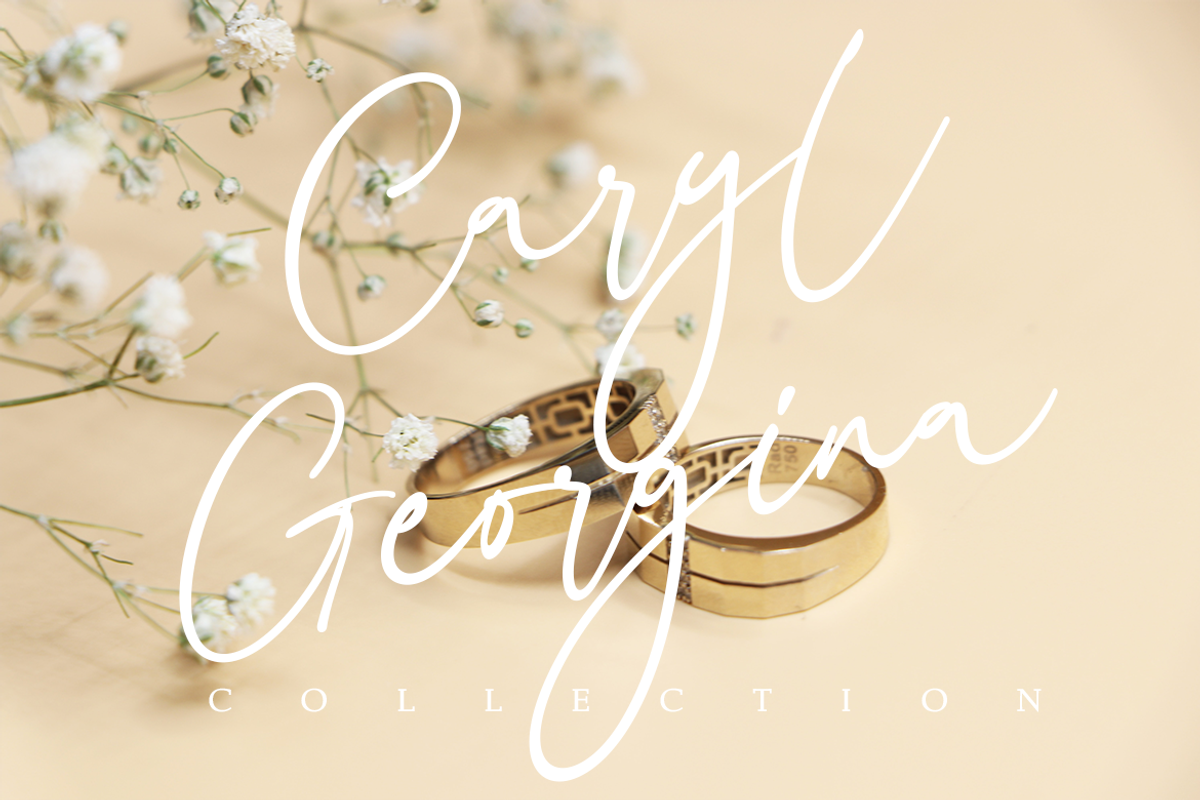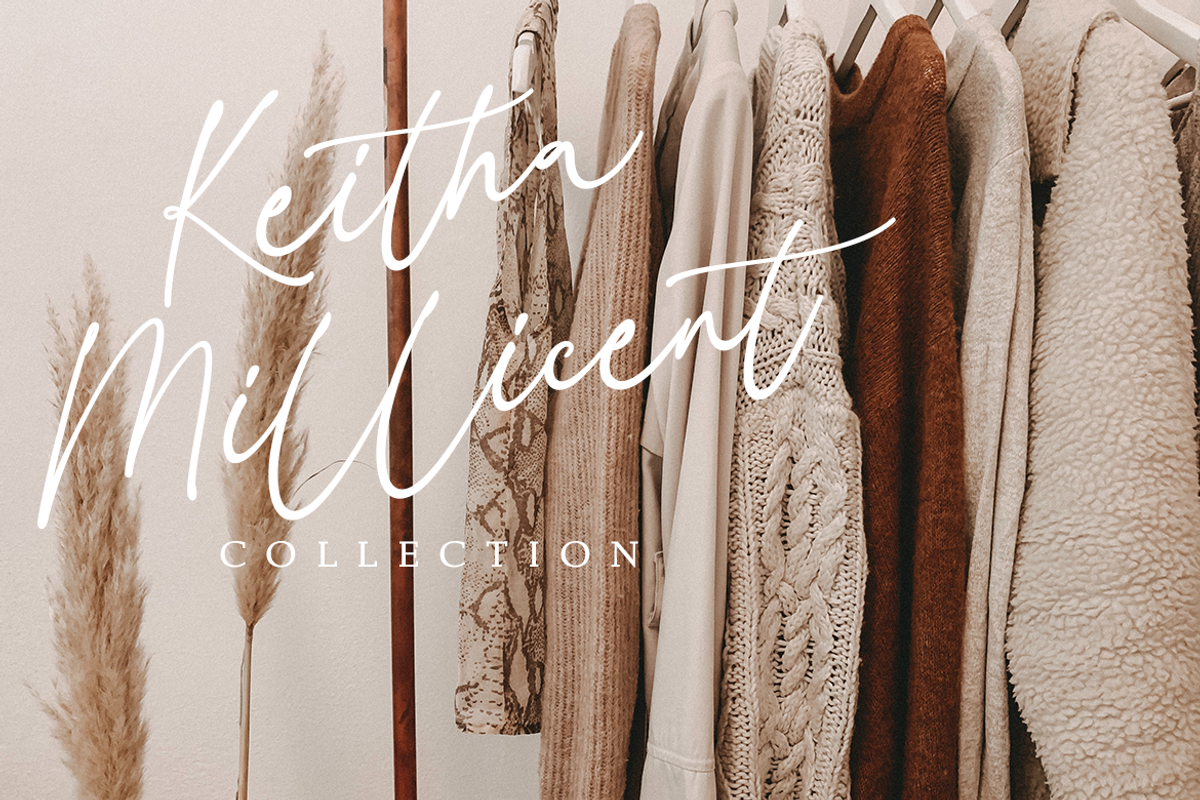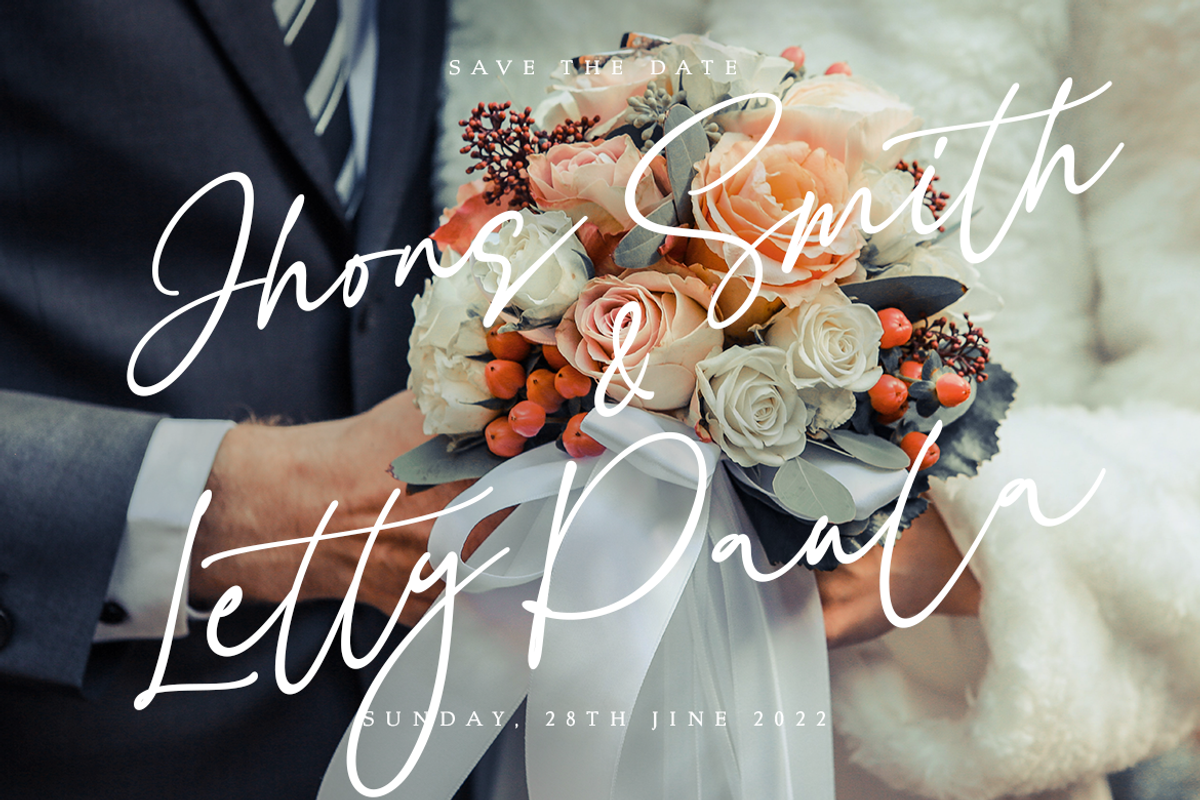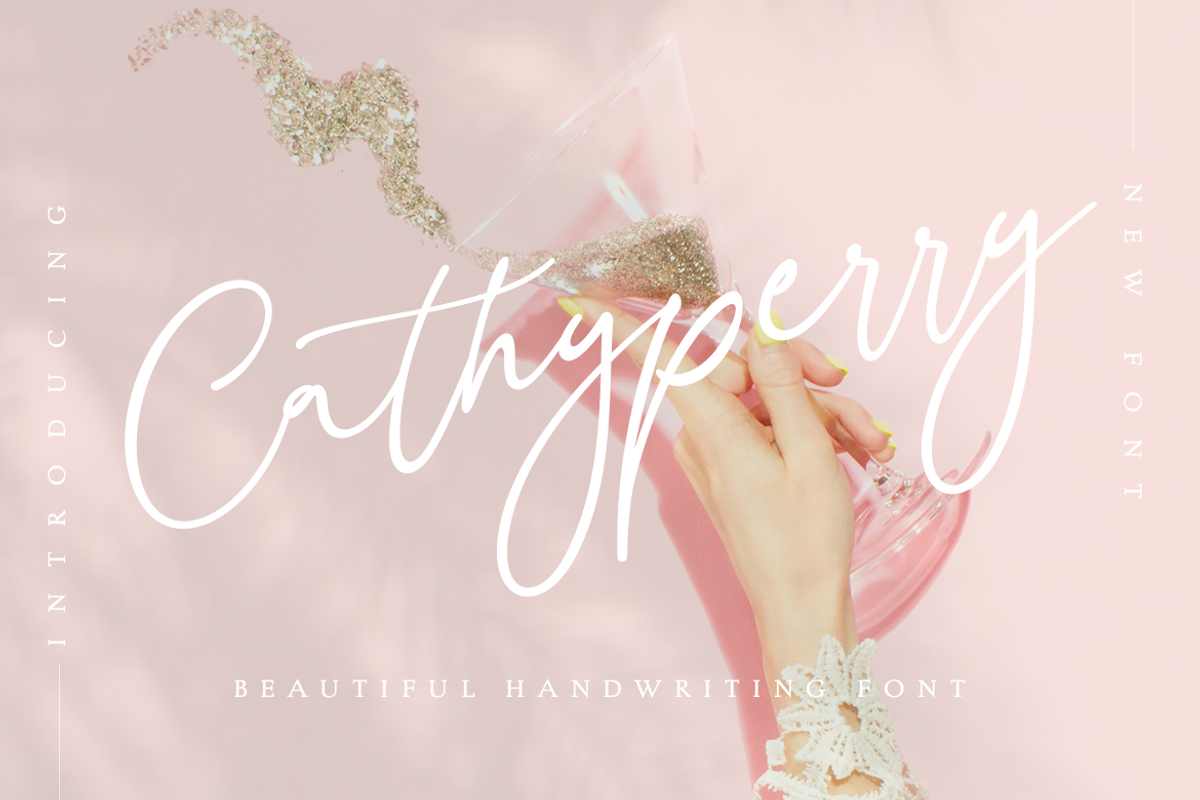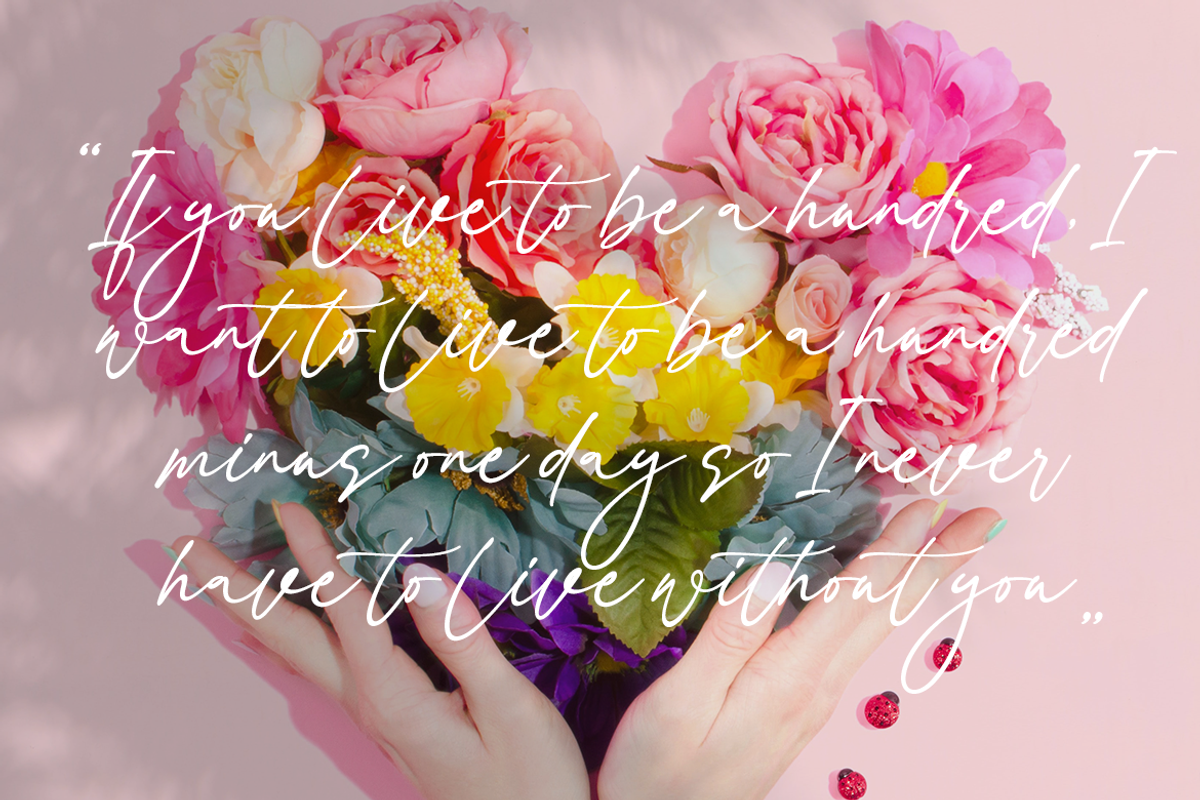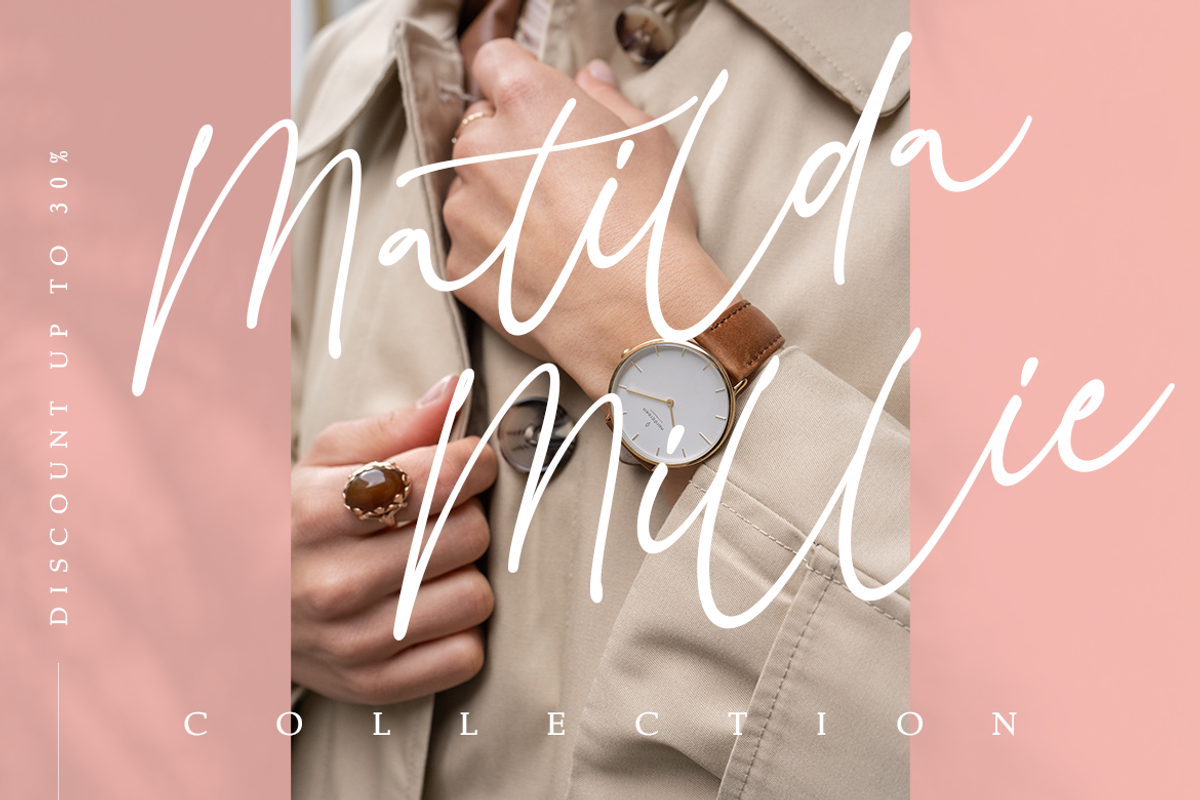
Cathyperry - Handwritten Font
Cathperry a stylish casual modern calligraphy script font. This font is perfect for logos, invitations, stationery, wedding designs, label, photography, watermark, special events, or anything that needs a romantic, handwritten touch.